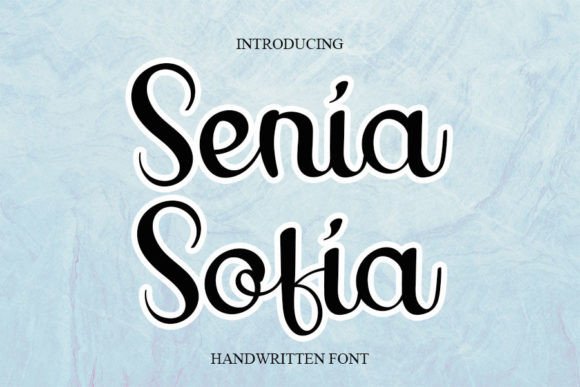
Introducing Senia Sofia Font, the captivating script font that will ignite your imagination and leave a lasting impression on your audience. Step into a world of creativity and expression with this exquisite font, meticulously crafted by ONE DESIGN to evoke elegance and charm in every stroke.
Senia Sofia is not just a font; it's an artistic masterpiece that elevates your projects with its undeniable allure. With its vibrant and playful nature, this font is the perfect choice for wedding invitations that radiate joy and romance, adding a touch of whimsy to your special day. Its versatility extends beyond weddings, making it an excellent selection for branding, social media, and any creative endeavor that demands a dash of personality.
The clean and slightly quirky character of Senia Sofia adds a unique charm to your creations, making them stand out from the crowd. It's the perfect font for logos that demand attention, ensuring your brand identity shines with confidence and style. Unleash your creativity and watch as your projects transform into captivating works of art with this enchanting script.
Senia Sofia Font is more than just a collection of letters; it's an invitation to let your imagination soar and create designs that captivate and inspire. Whether you're a seasoned designer or a passionate DIY enthusiast, this font will empower you to express your vision with grace and originality.